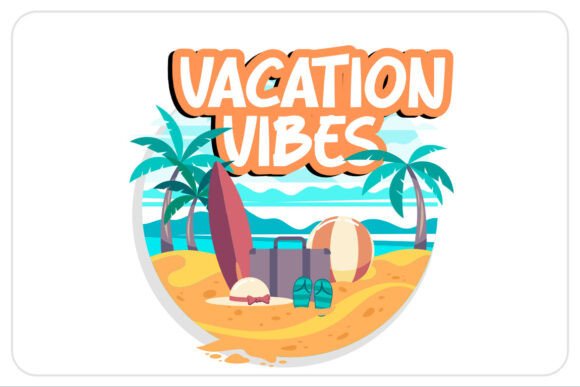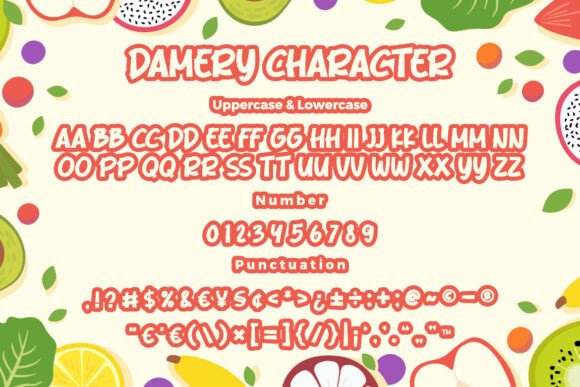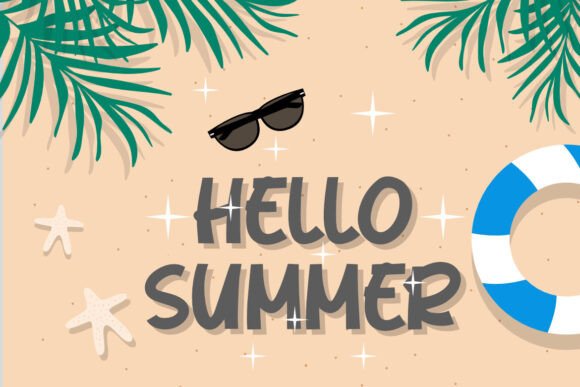
Introduction to Damery Font
Damery is a fun and playful font with bold, rounded letters.
It has a cheerful look, making it great for projects that need a friendly and light-hearted feel, like kids’ designs, posters, or invitations Its simple and easy-to-read style adds a touch of fun to any text.
Key Features of Damery Font
Why Choose Damery Font?